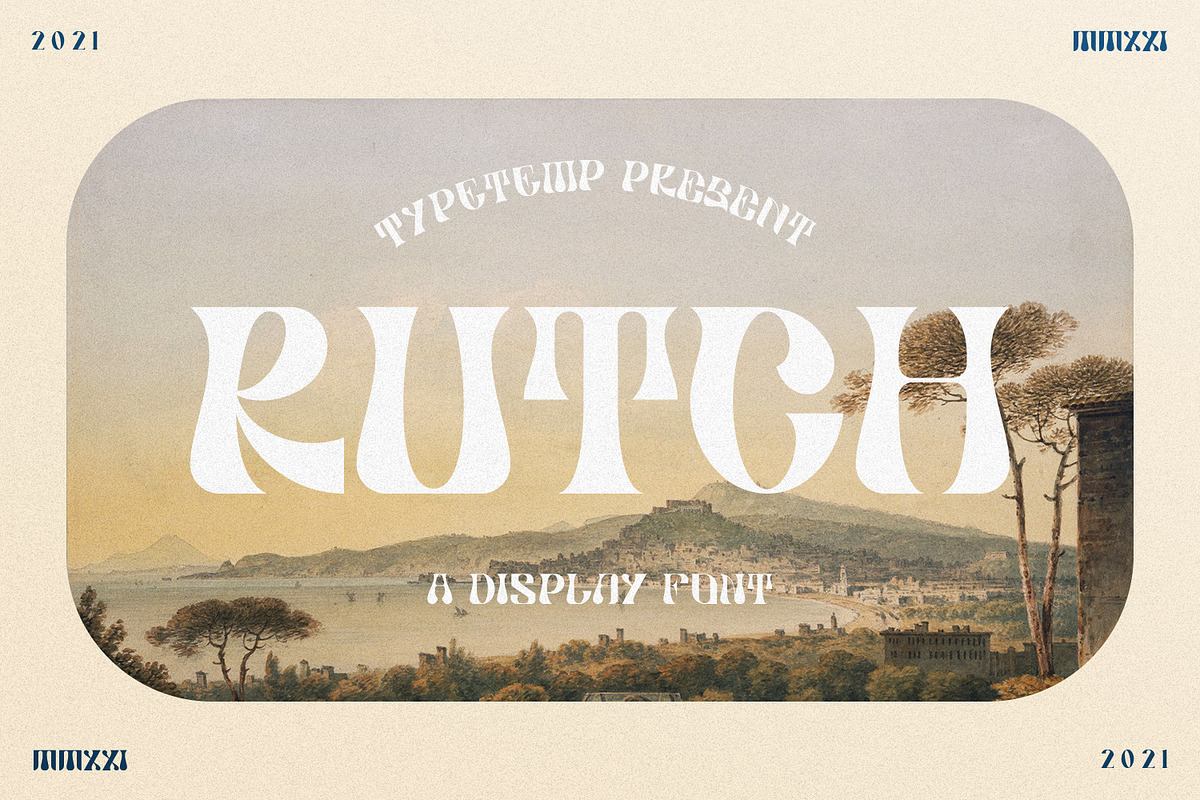
Rutch Display Font Free Download
Bold, unique, and full of personality, Rutch Display Font Free Download is a standout typeface designed to make a strong visual impact. Perfect for posters, branding, logos, headlines, and any project that needs to grab attention, this font features striking, geometric letterforms and distinctive design elements.
With its high contrast and modern aesthetic, Rutch Display adds a contemporary, edgy feel to your typography. Whether you’re designing for a cutting-edge brand, creating eye-catching marketing materials, or working on an artistic project, this font delivers both style and impact.